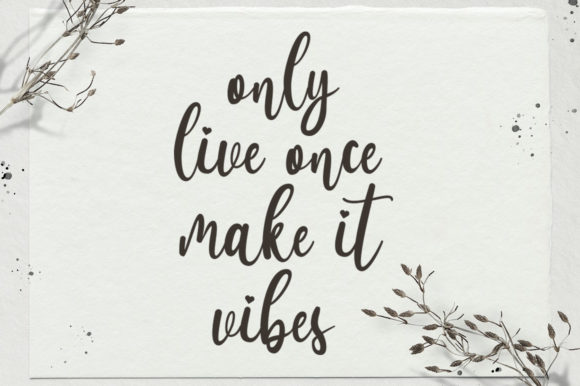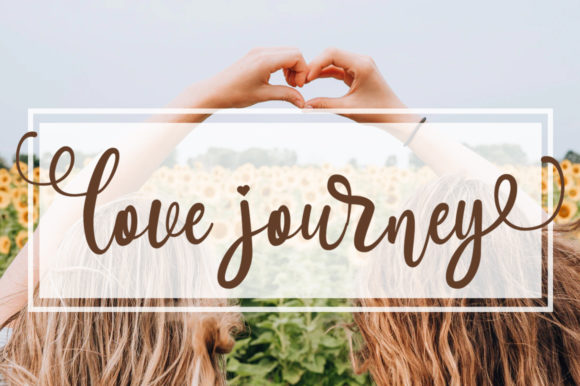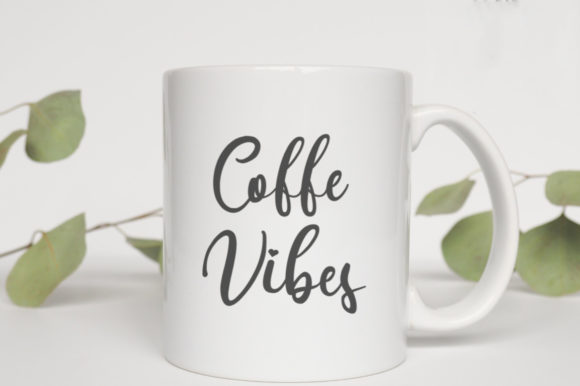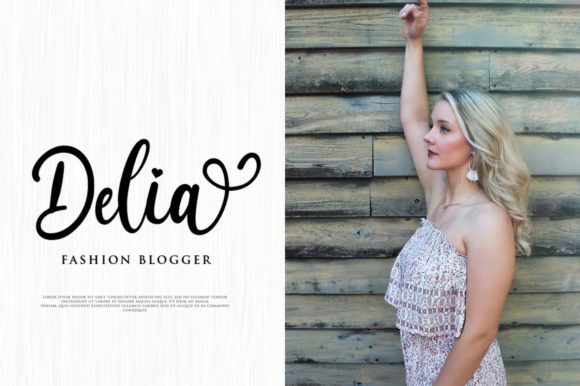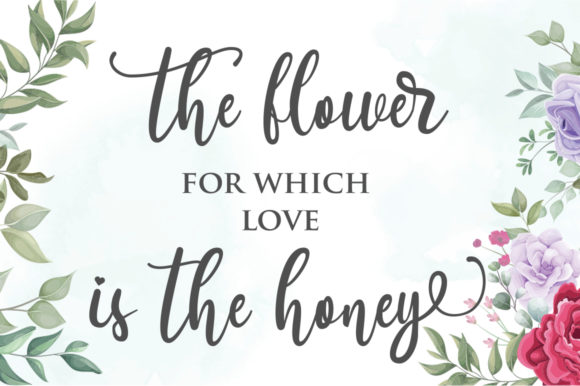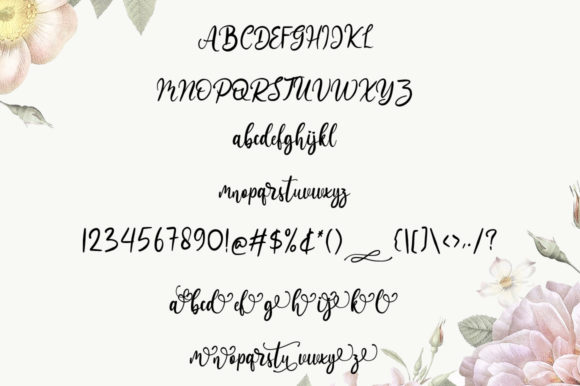
Barely Font
About Barely Font
Barely is a sweet, all round and flexible handwritten font. Warm, romantic and jolly, this font will turn each of your project ideas into real works of art. This font is PUA encoded which means you can access all of the glyphs and swashes with ease!